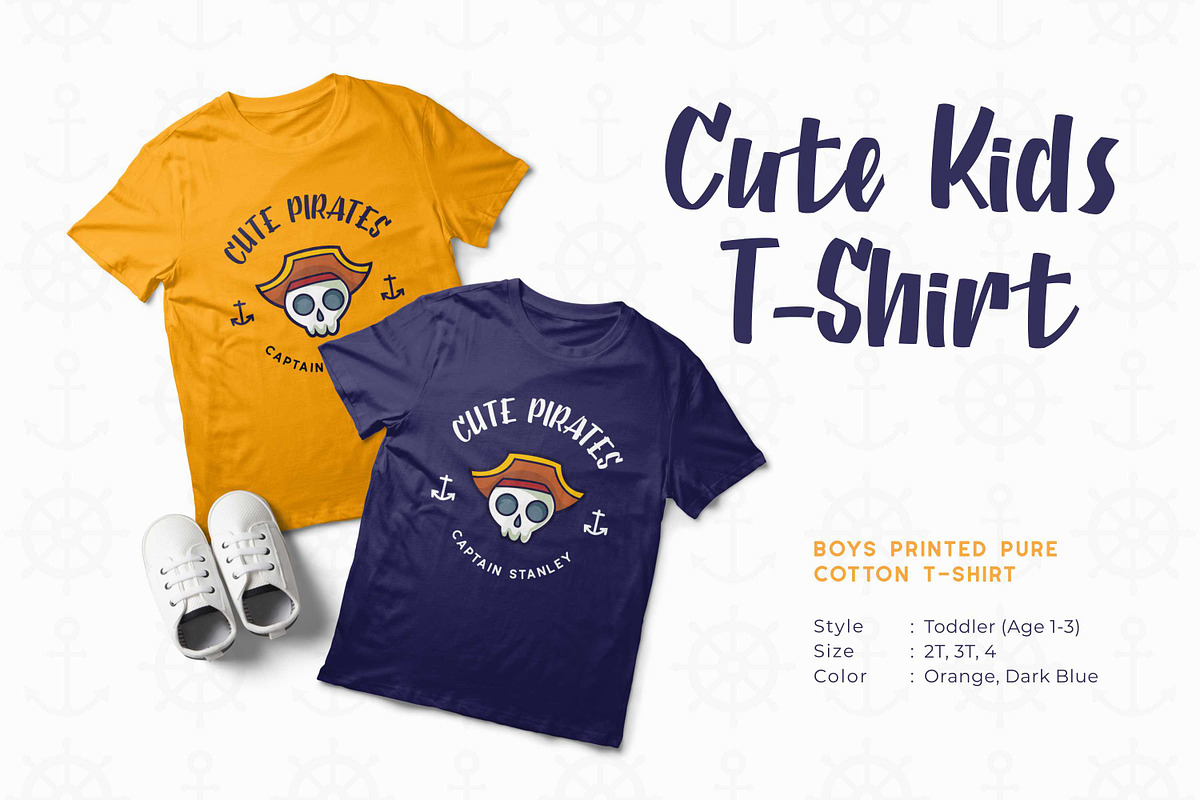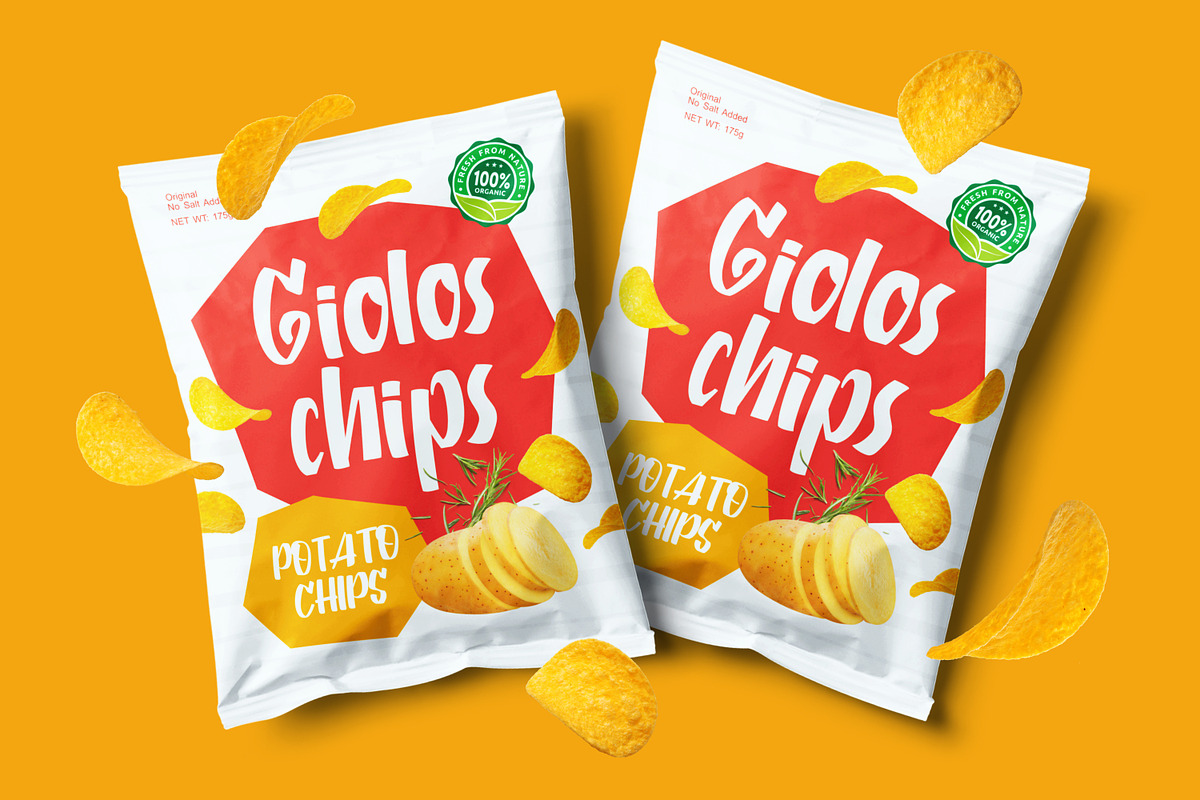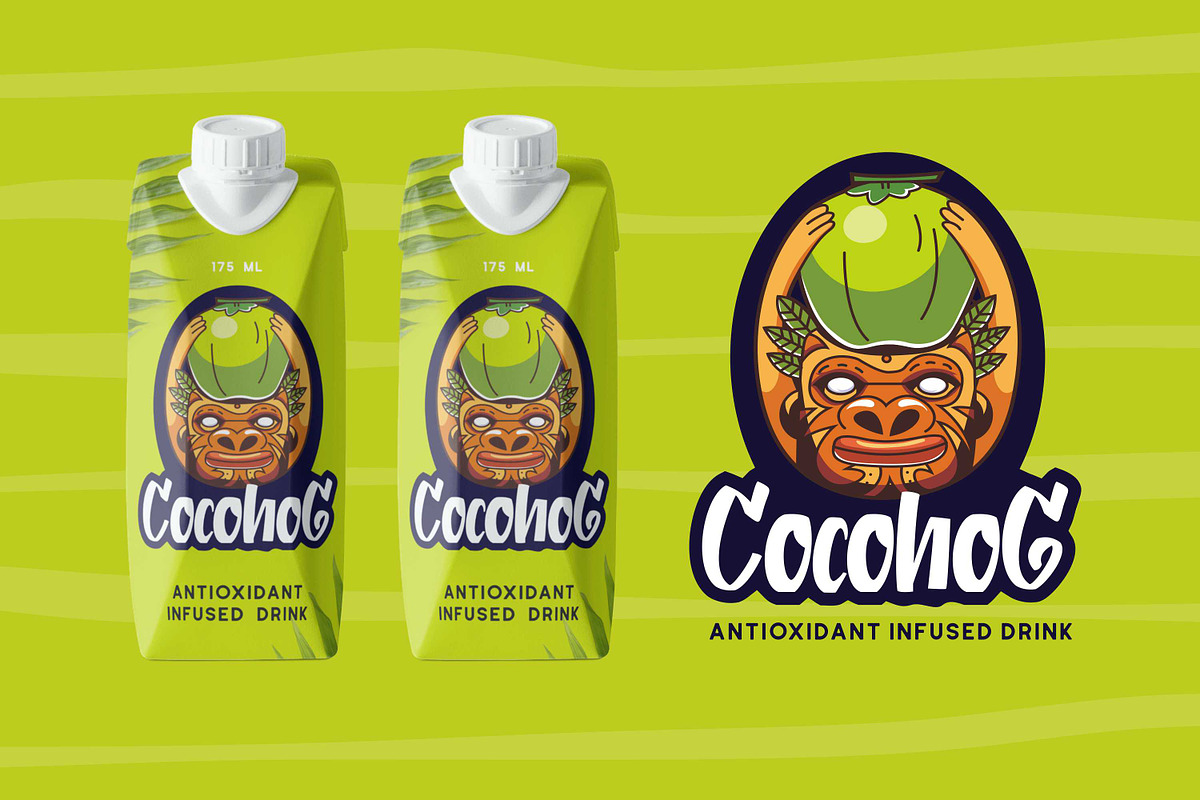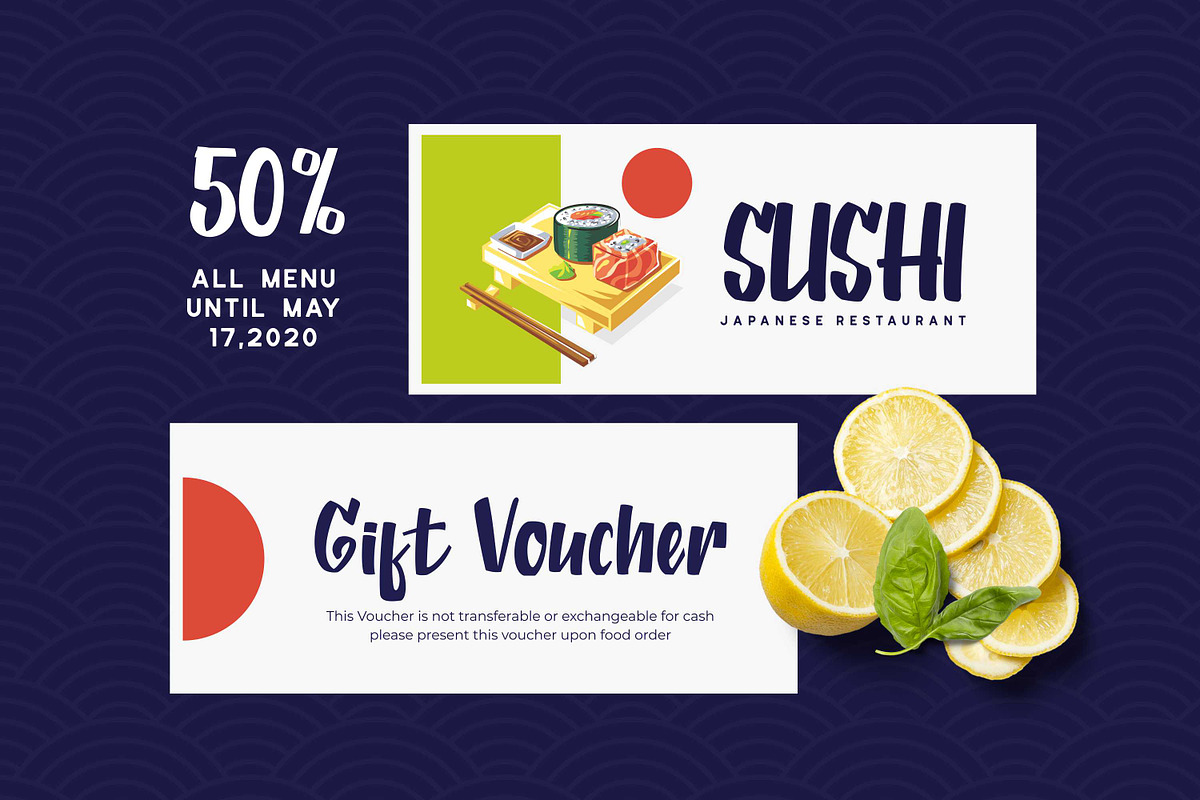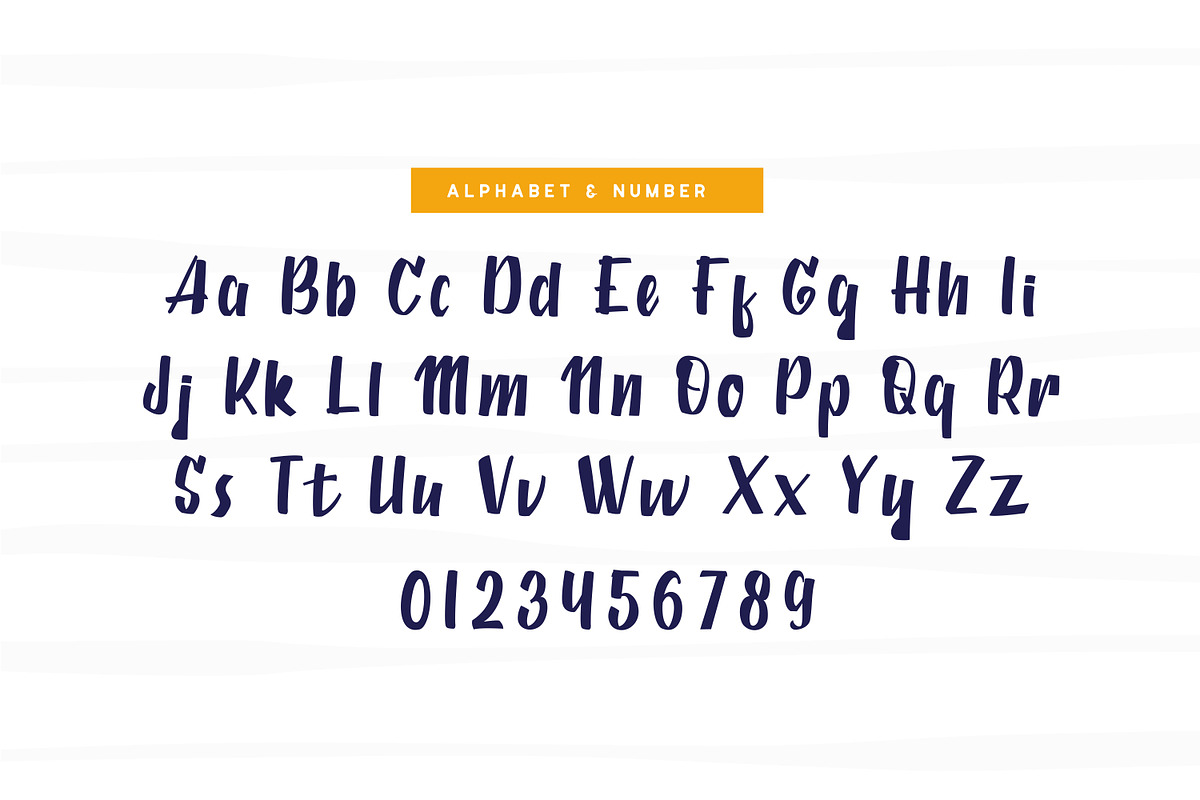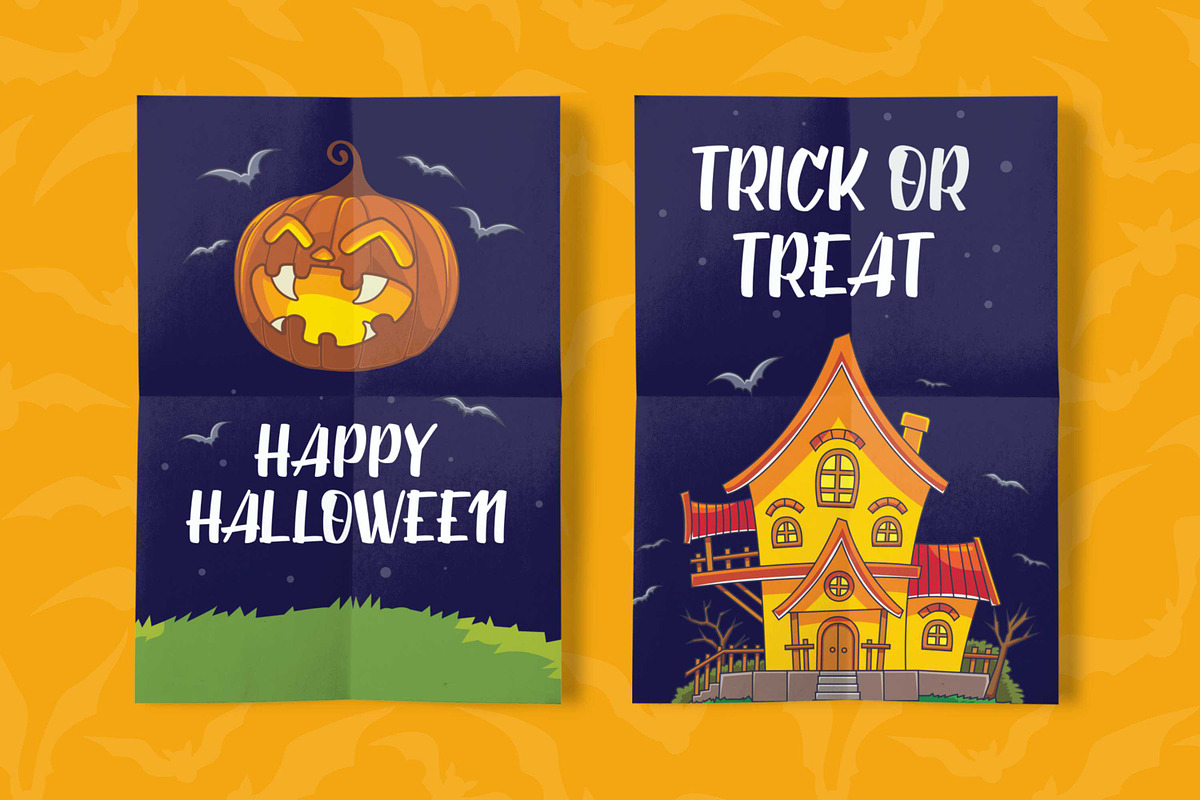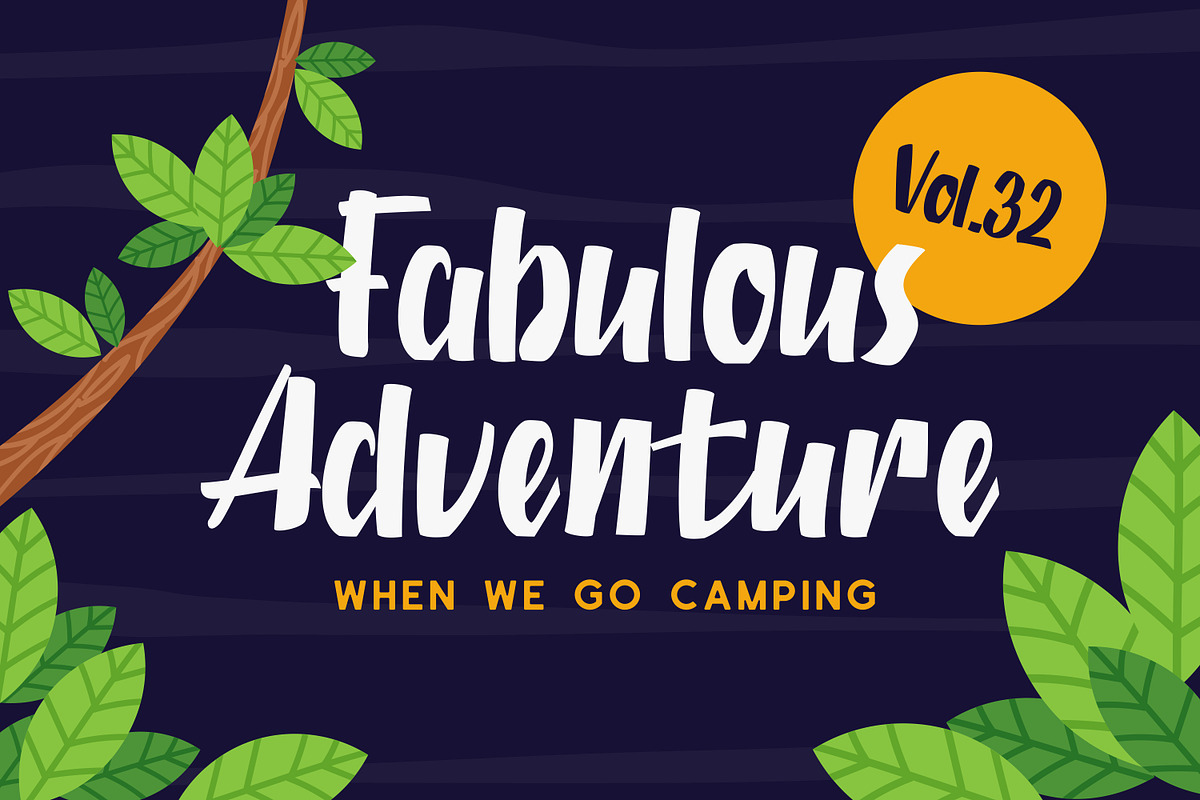
Pier Georad - Display Typeface
Proudly present Pier Georad! This is great casual and playful typeface designed in 2020. This font can be used for anything such as like logo, packaging, poster, branding, header, poster, apparel, and others cute or casual design project.
Numerals & punctuation